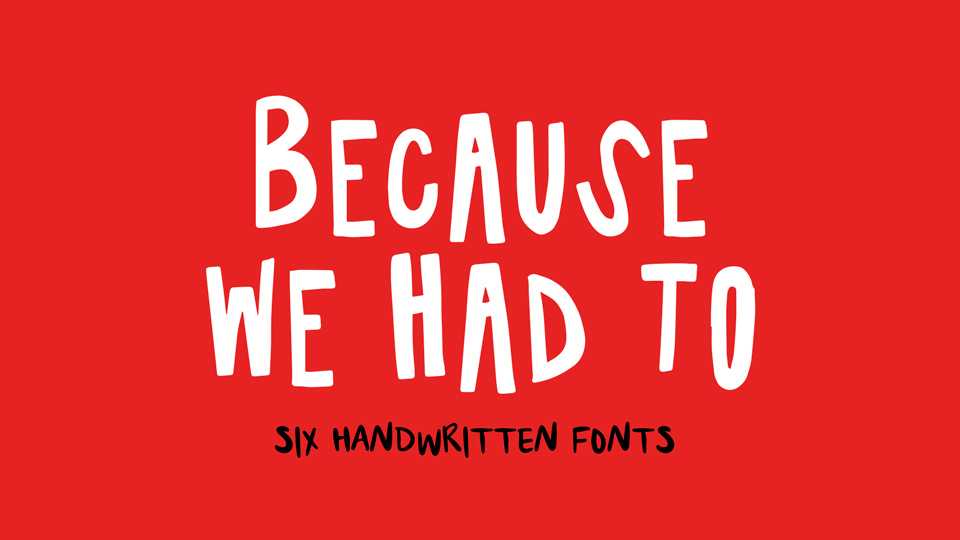
Download Because We Had to fonts, a 6 handwritten typfaces created in an idea for handcrafted titling, with natural flow: 3 for titling and 3 for pull quotes. Each one takes on a different face of the lives, approaches, and work of the women who sit at the intersection of art and innovation.